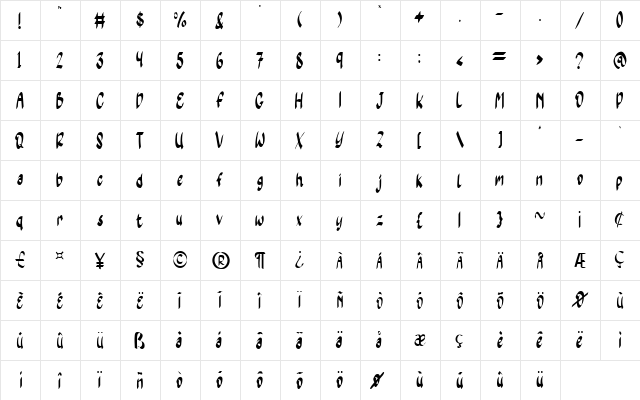
Yellow Moon Regular
Design Context for Yellow Moon Typeface
Yellow Moon is a composed and adaptable typeface that performs quietly and consistently across a wide range of design contexts.
Pro Tip: Pair Yellow Moon with a font of contrasting weight or personality to build a more expressive typographic hierarchy.